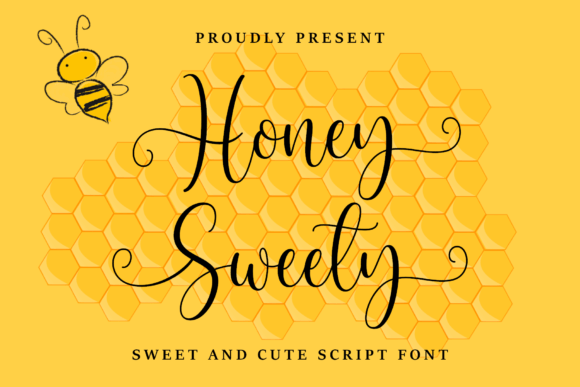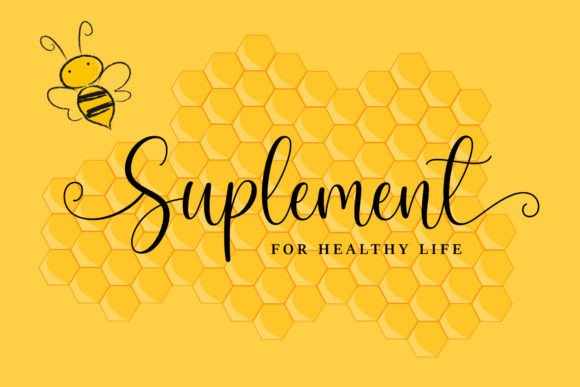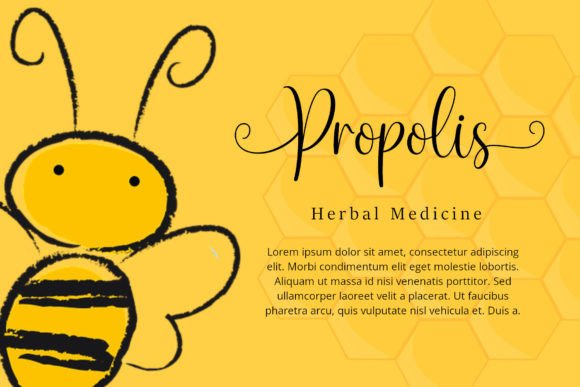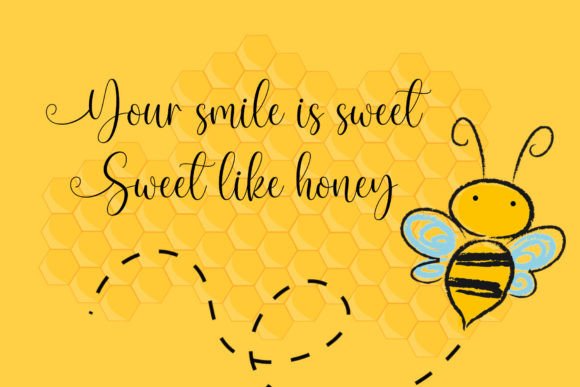
About the Honey Sweety Font
Let us introduce you to Honey Sweety Font, where timeless design meets modern craftsmanship. Honey Sweety is a sweet and adorable handwritten script font. Add this unique and lovely font to your projects and you will be amazed by the outcome generated!
Honey Sweety’s playful charm makes it ideal for projects requiring a touch of sweetness and personality. Consider using it for branding related to children’s products, confectionery, or artisanal goods. It also works well in short headlines, social media graphics, and wedding invitations. Avoid using it for large bodies of text or UI elements where legibility is paramount; its handwritten nature can hinder readability in extended passages.
Pairing Honey Sweety with a clean sans-serif like Open Sans or Lato provides a pleasing contrast, balancing its organic feel with a modern sensibility. For a more vintage aesthetic, consider pairing it with a serif font like Playfair Display or Merriweather. A geometric sans-serif such as Montserrat could also offer a striking juxtaposition.
Its core personality is undeniably friendly and approachable, making it perfect for conveying warmth and approachability.